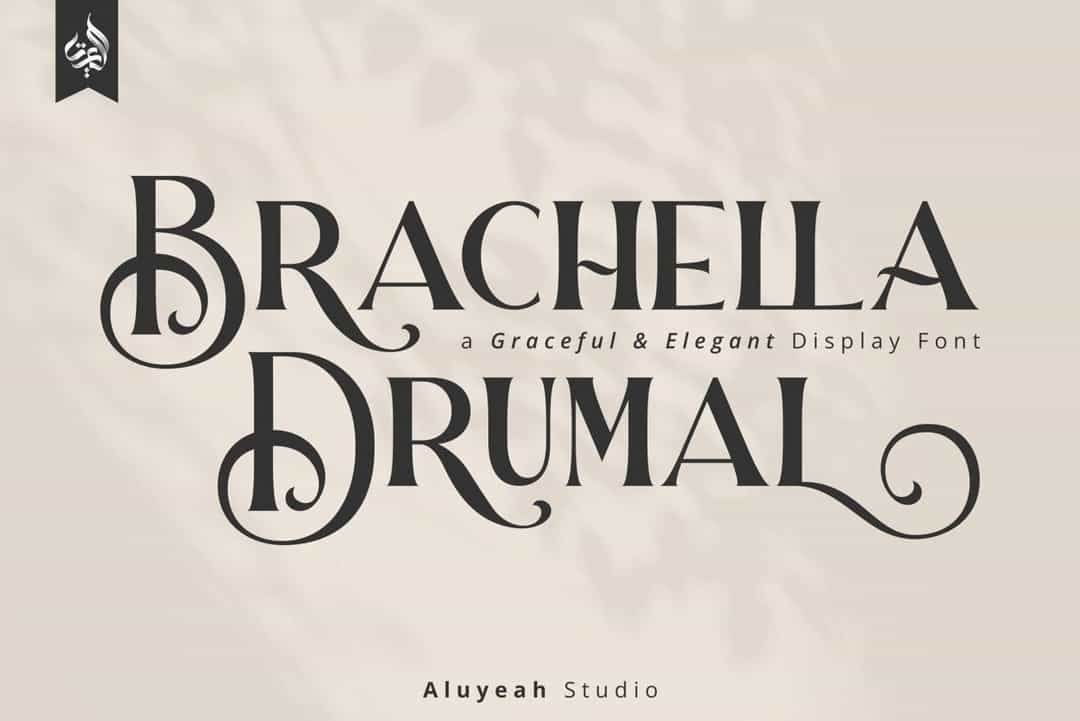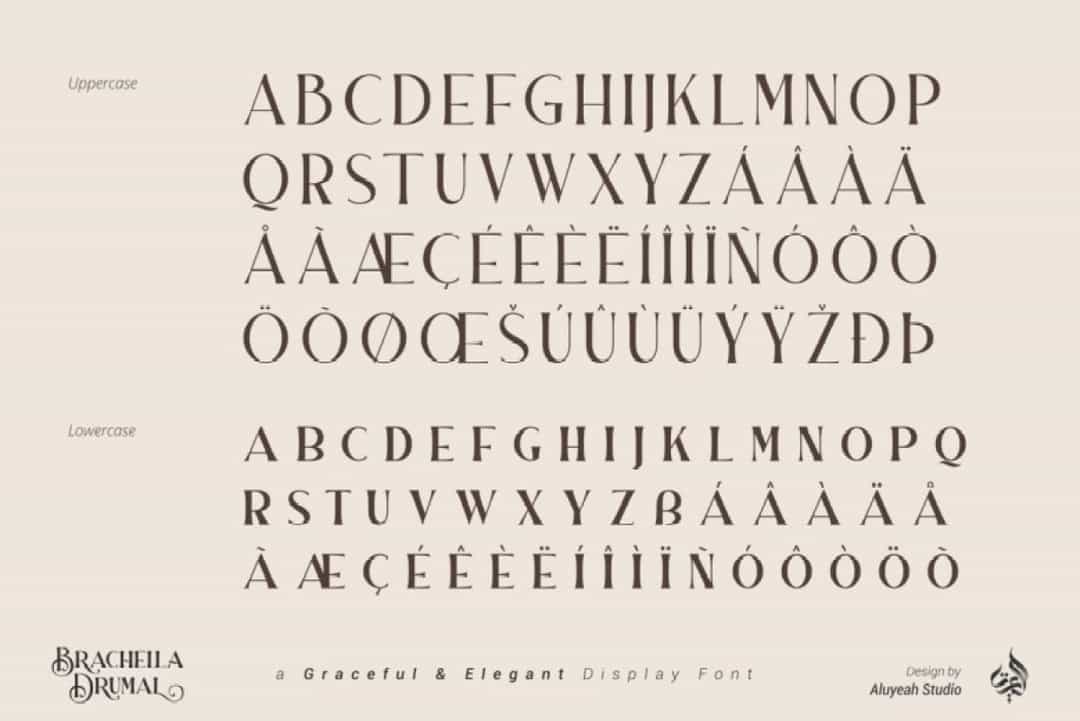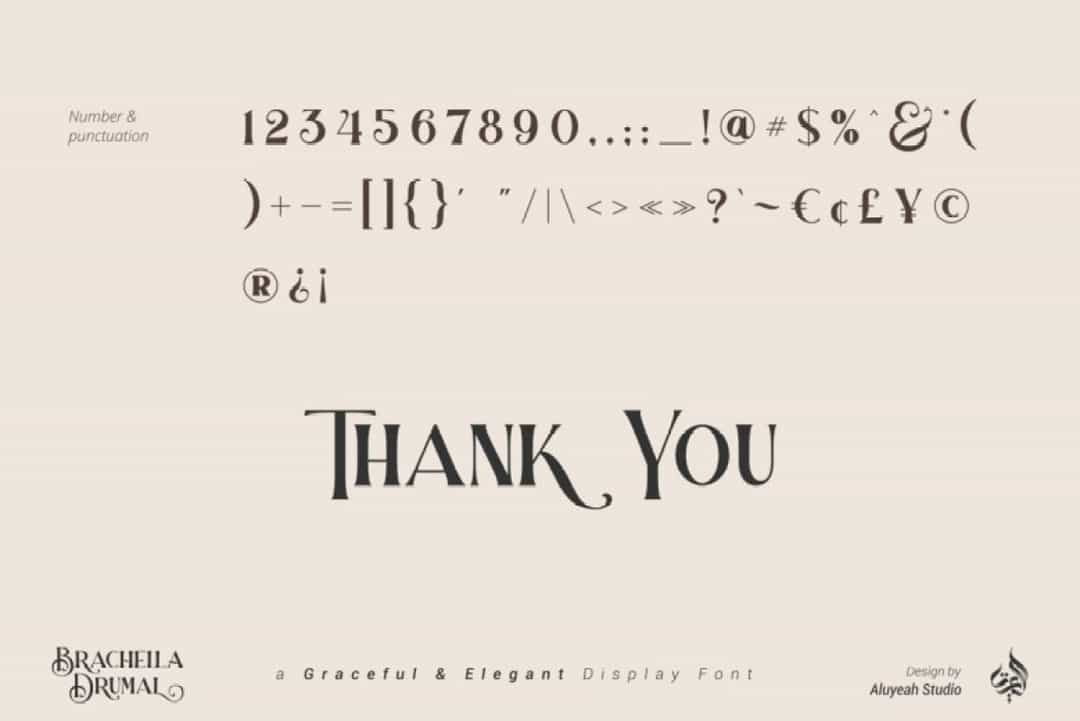
Brachella Drumal is a display font that comes with unique and ligament fonts to give elegance with style to the design. Suitable for quotes and previews logotype designs, fashion web banners, music promotion events, restaurant or coffee shop promotions and many others, Brachella Drumal is a great statement font.